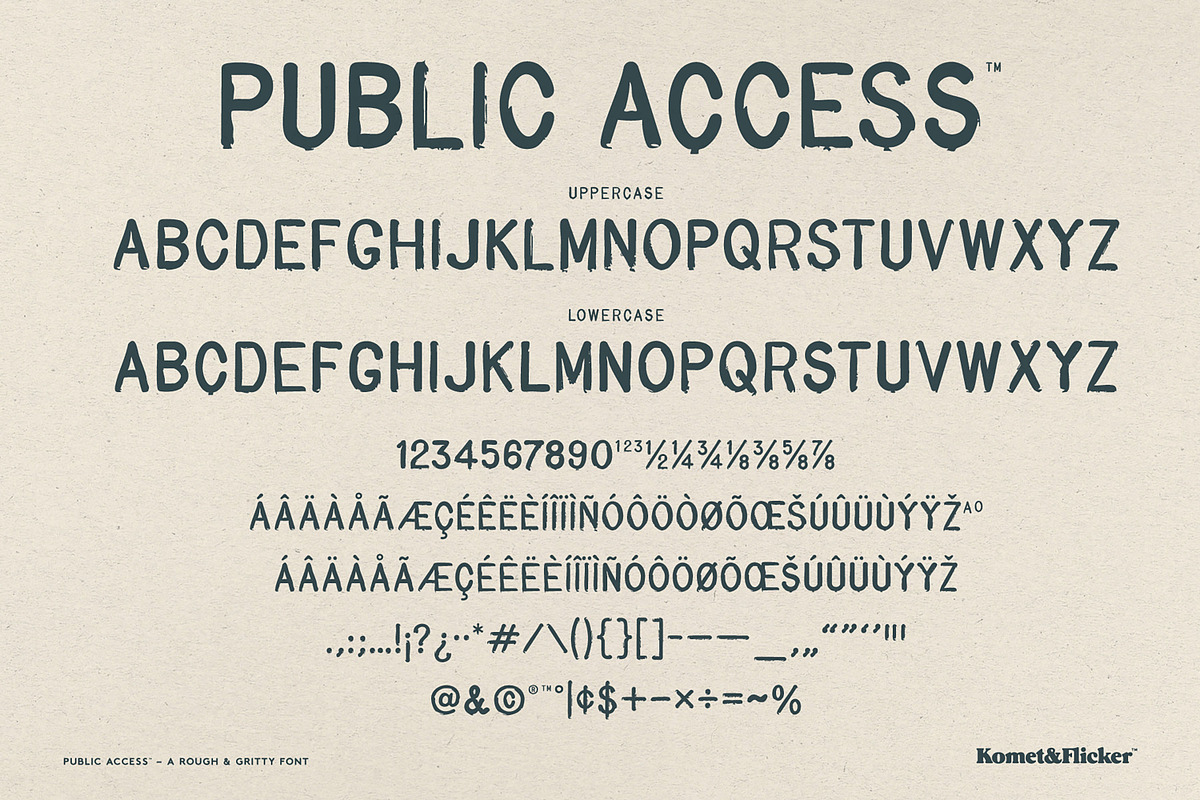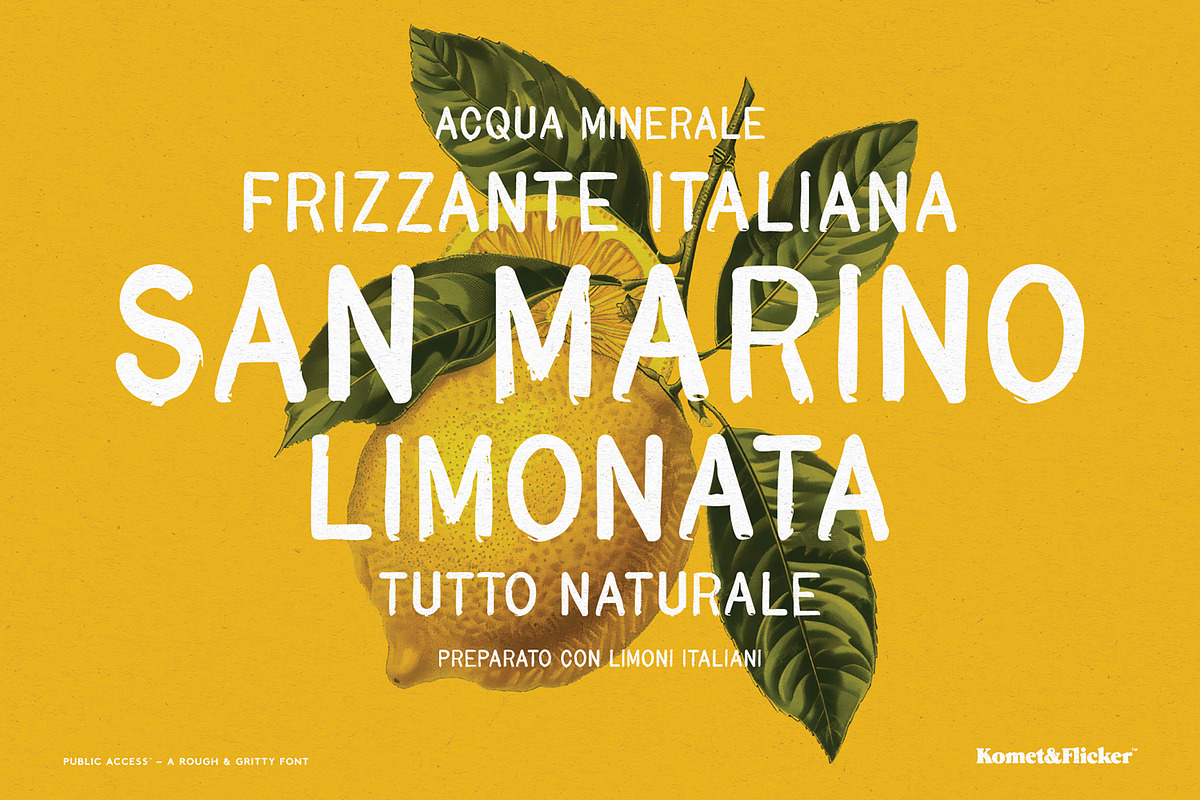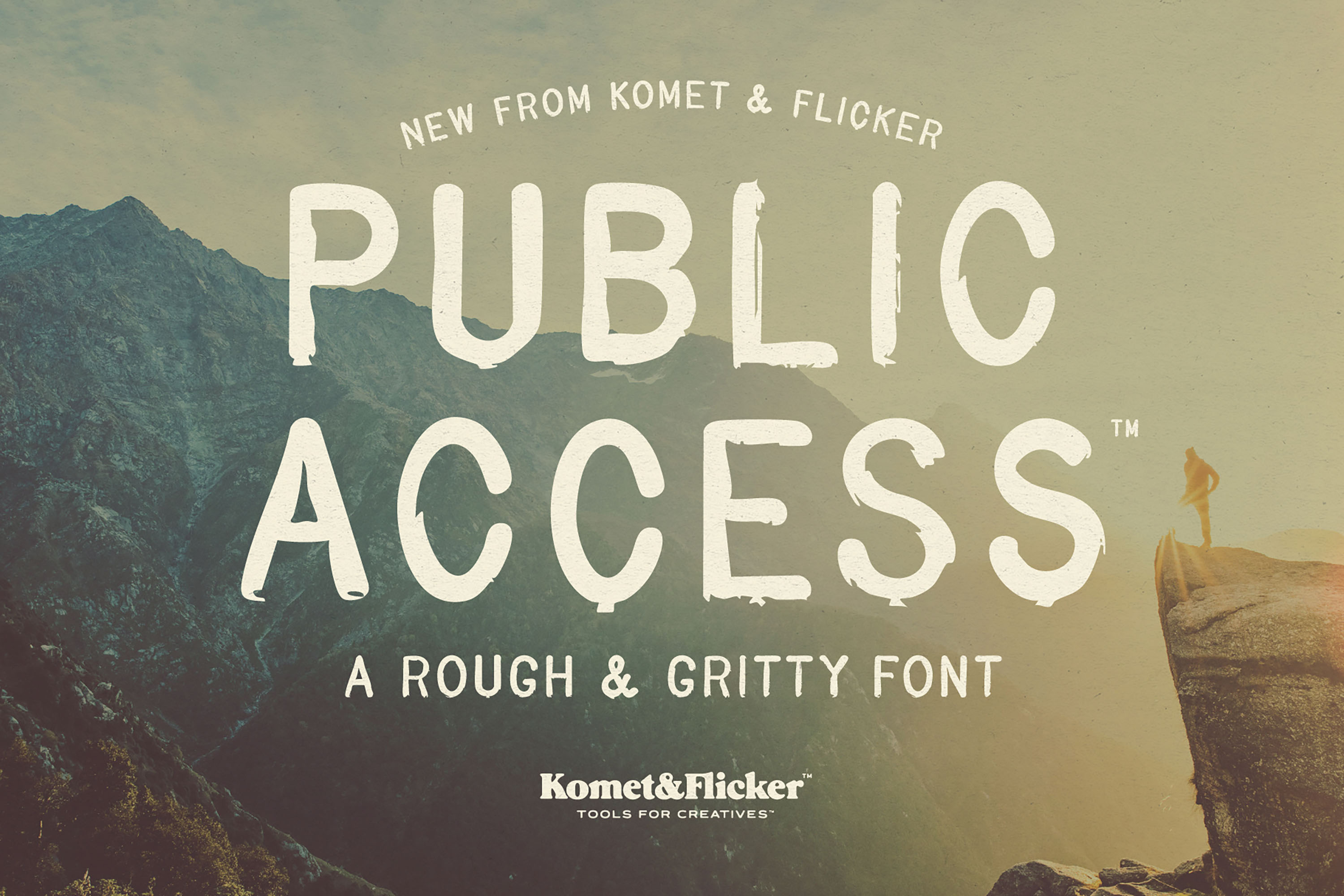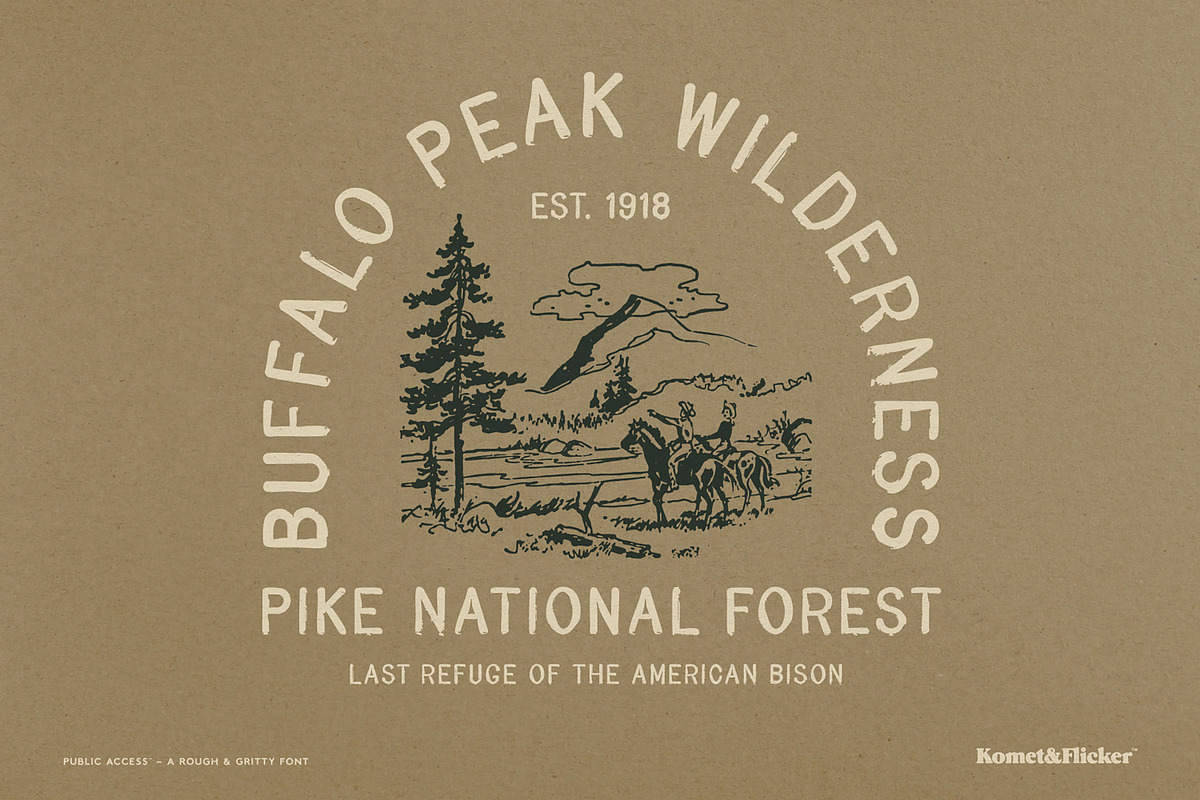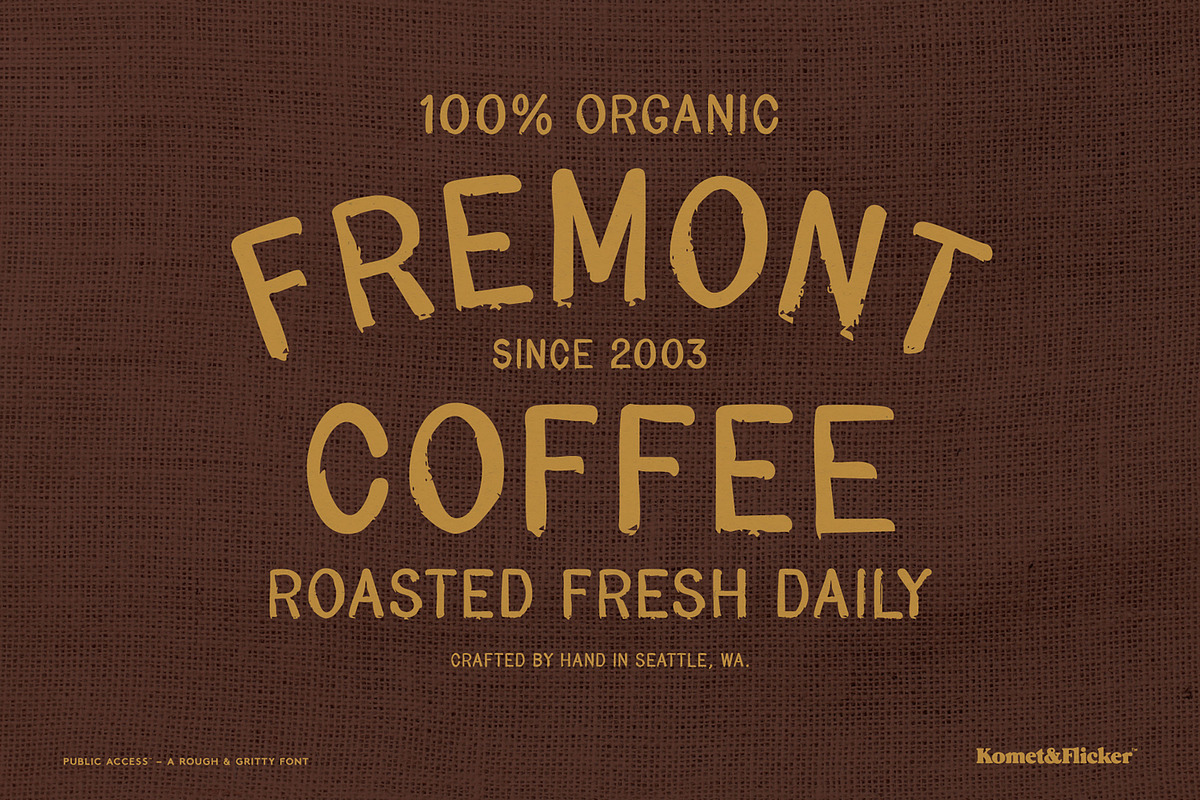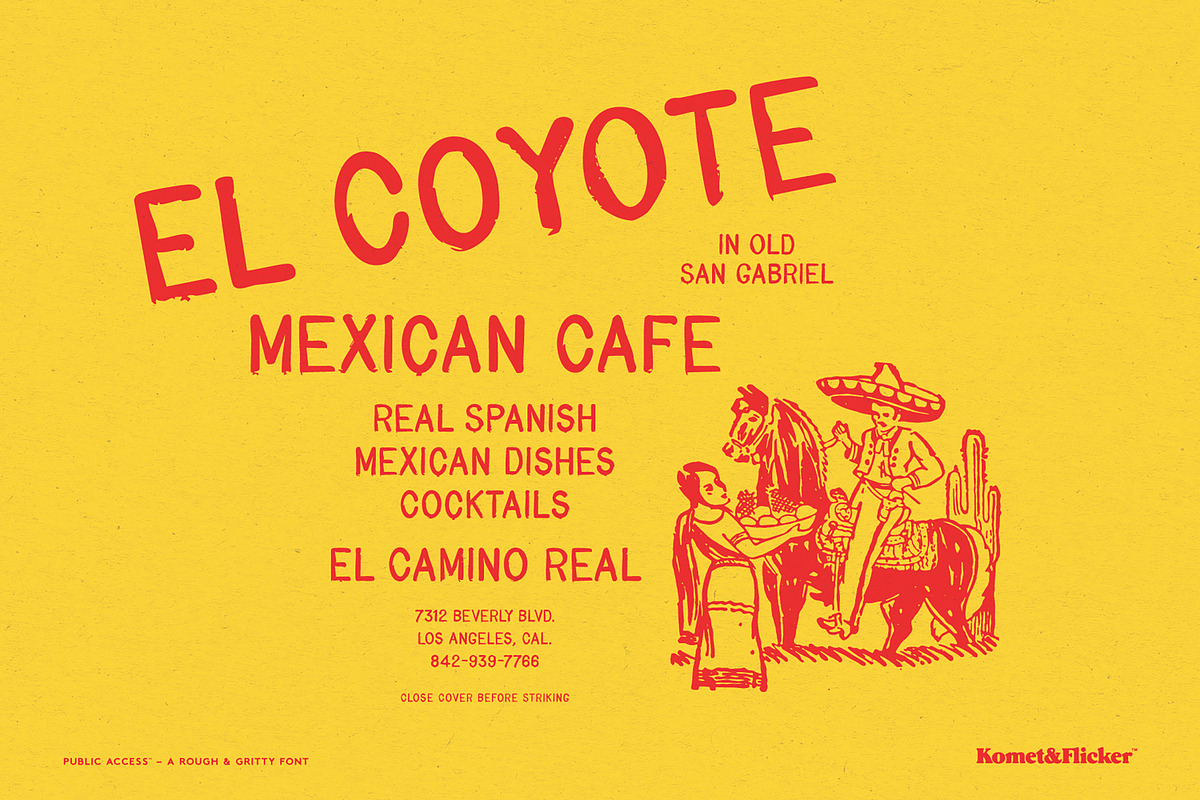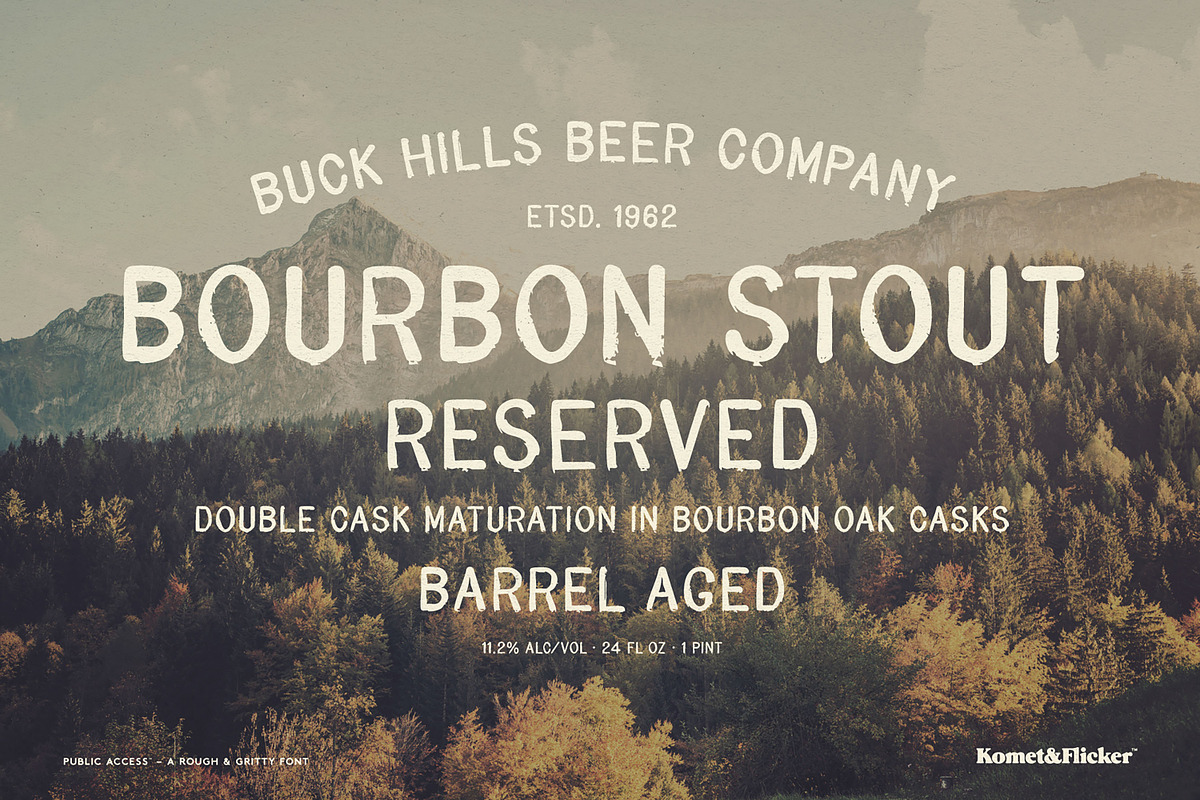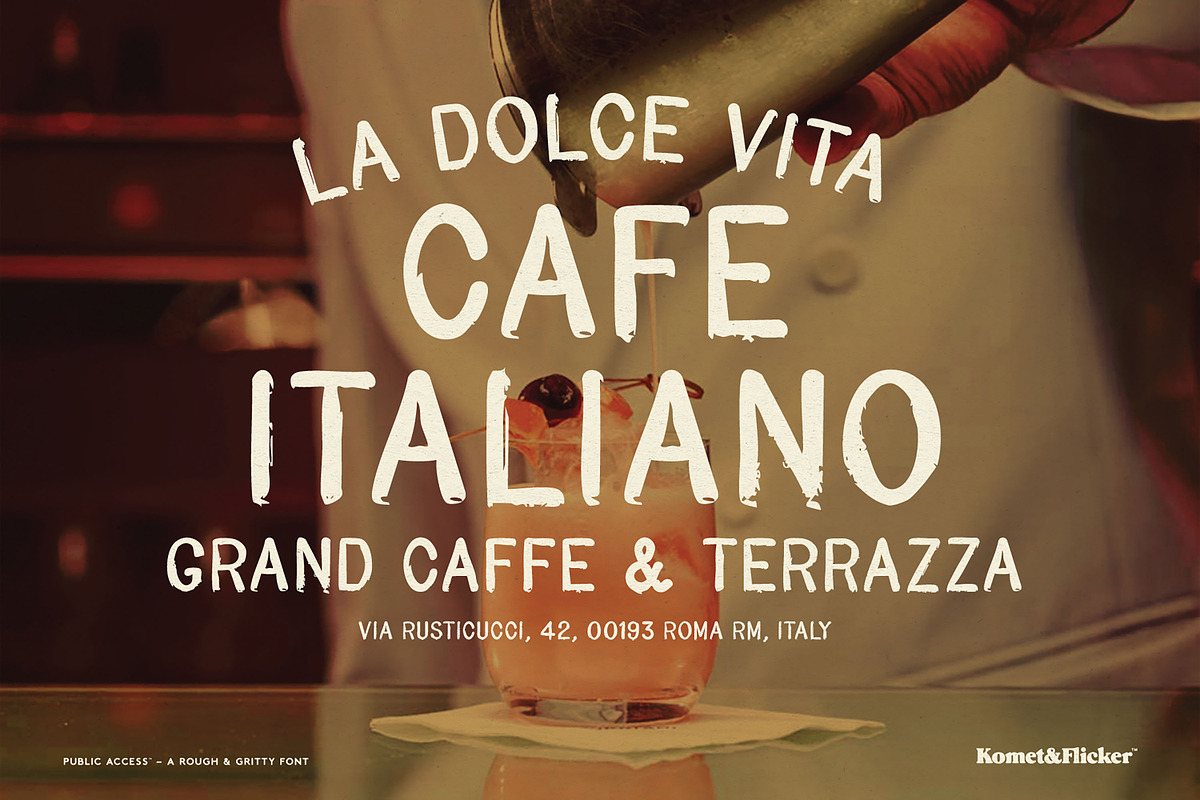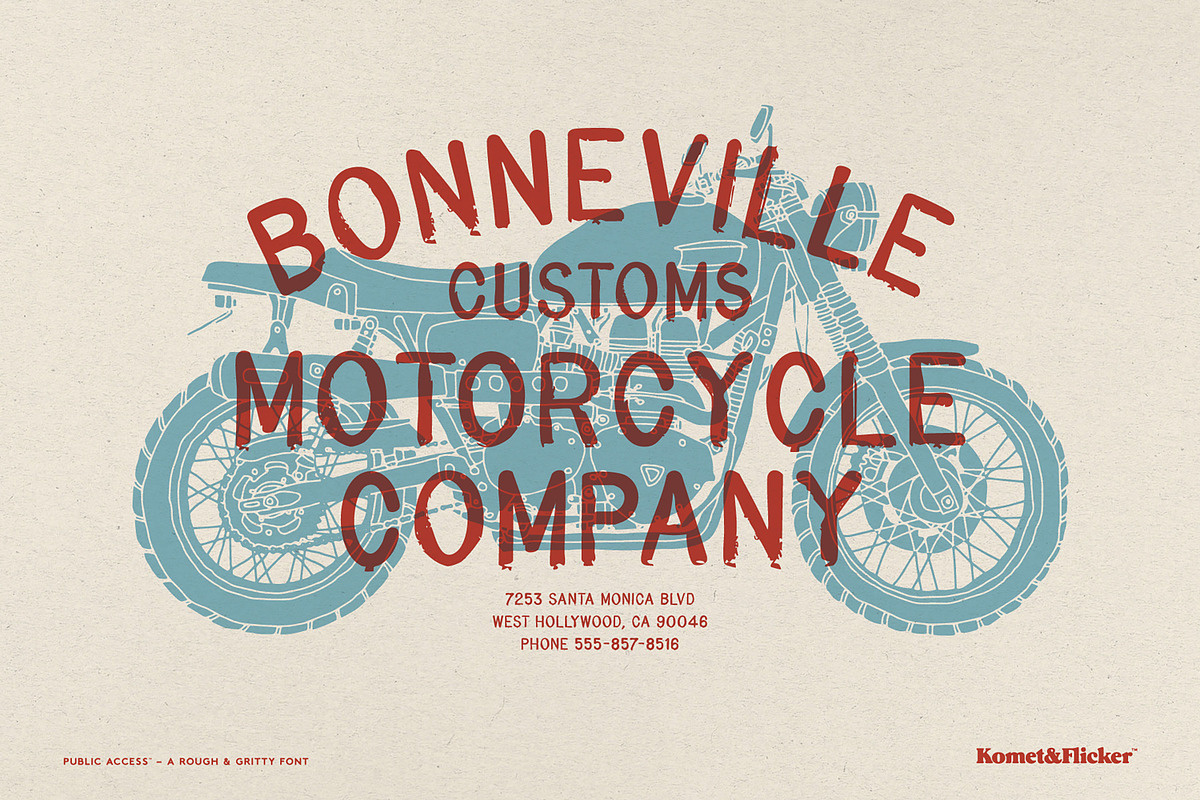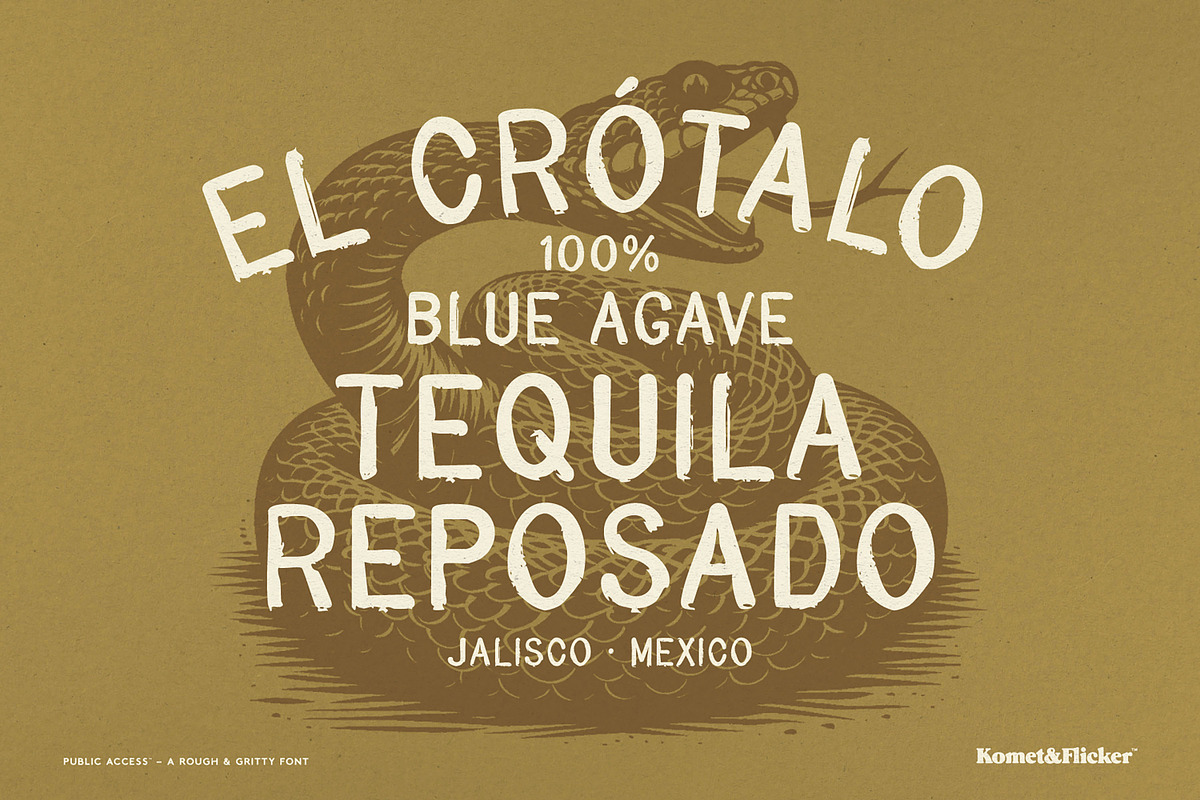
Public Access – A Rough Font
Public Access is an all-caps display font inspired by the rugged functionality of hiking trail signs. Built with a rough, gritty texture, it brings a raw character and weather-worn feel to your designs.
Public Access features distinct upper and lowercase glyphs, giving you a variation for every letter. This subtle alternation creates a more natural, handcrafted flow – perfect for any design that needs an authentic, trail-tested voice.
Bold. Imperfect. Instantly readable. Public Access captures the spirit of the outdoors and the grit of the journey.